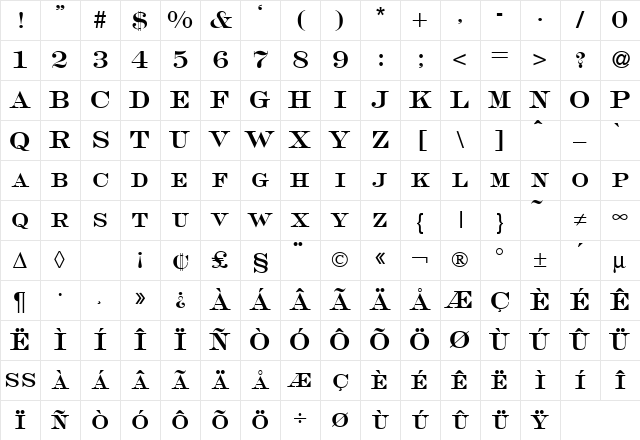
Complete SalingerSmc DB Regular glyph index. Displaying only characters natively supported by SalingerSmc DB Regular font.
SalingerSmc DB is a composed and adaptable typeface that performs quietly and consistently across a wide range of design contexts.